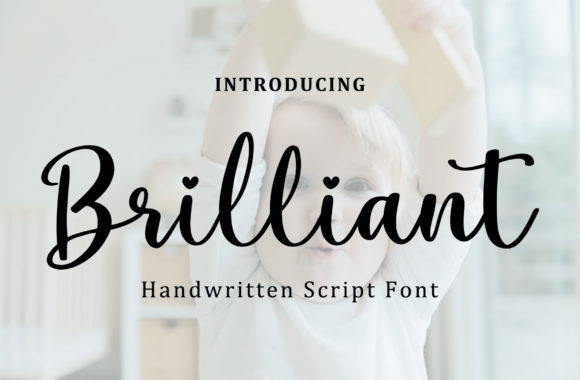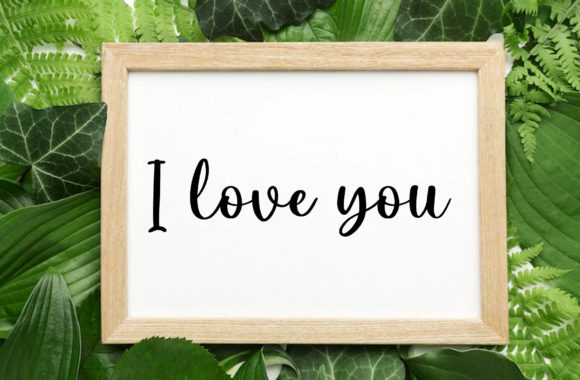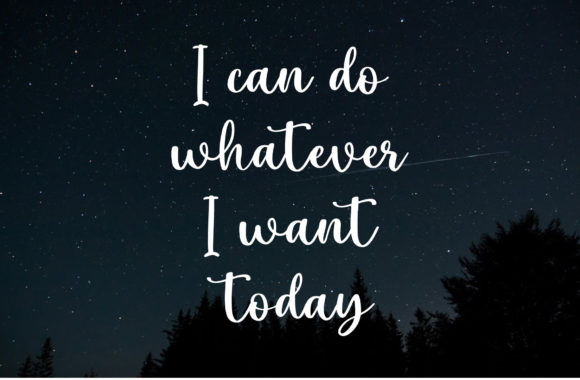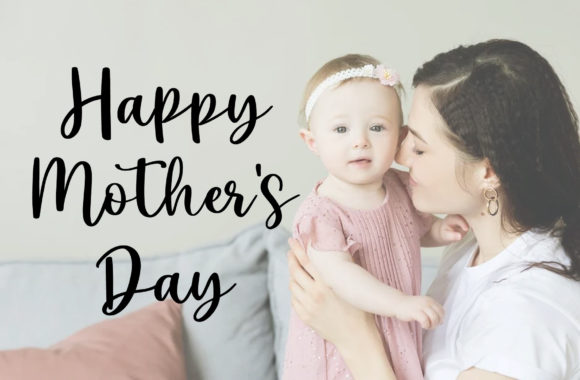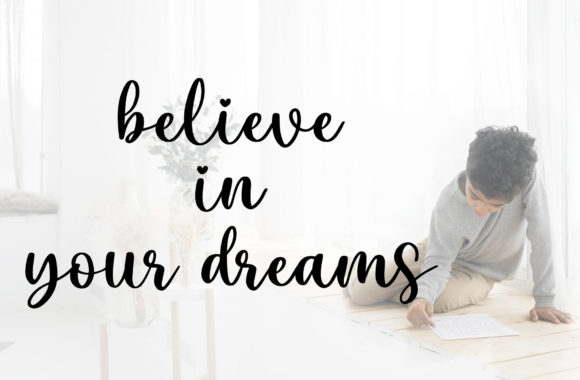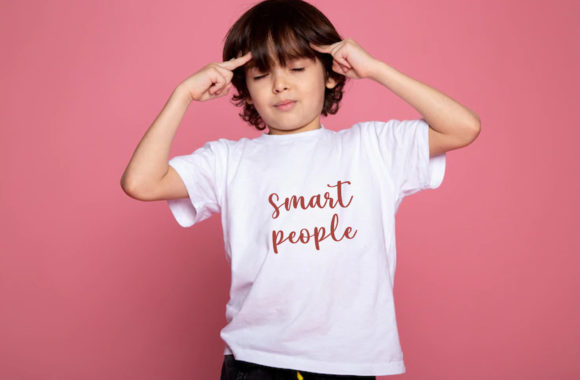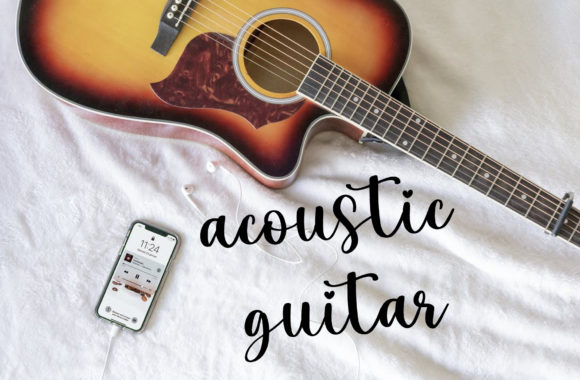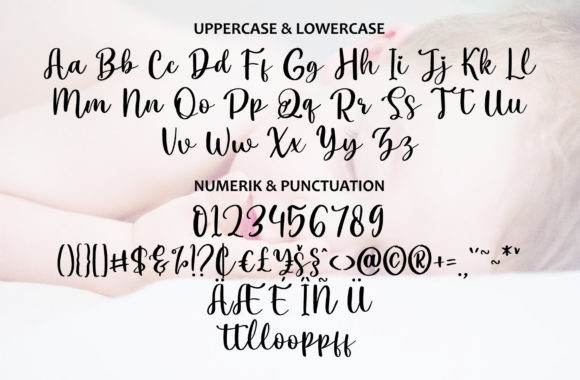
Brilliant Font
About Brilliant Font
Introducing “Brilliant,” a luxurious handwritten font that exudes elegance and flow. With a beautiful and balanced character, this font adds a touch of sophistication to your designs, making it a perfect complement for various creative projects. Explore the versatility of “Brilliant” and witness your most imaginative ideas come to life!
Imagine “Brilliant” gracing your designs with its luxurious and flowing strokes, elevating the overall aesthetic. Picture it on invitations, branding materials, product packaging, or any project where a touch of elegance is desired. Whether you’re working on digital or print designs, “Brilliant” seamlessly adapts to different contexts.
This font is PUA encoded, granting you easy access to a wealth of amazing glyphs and ligatures. This feature enhances your creative freedom, allowing you to customize and personalize your designs effortlessly.